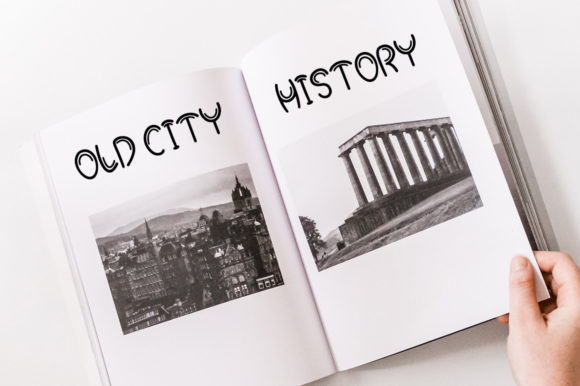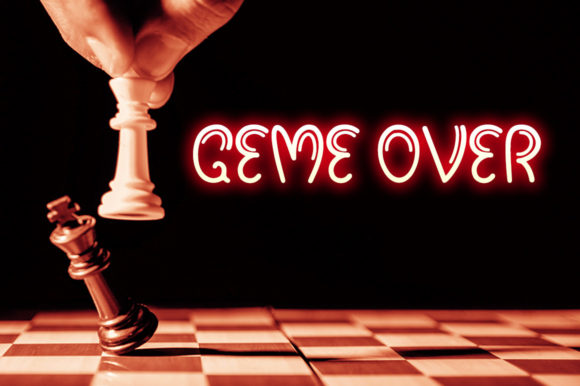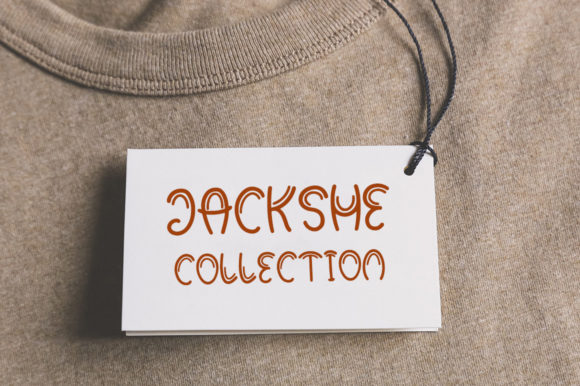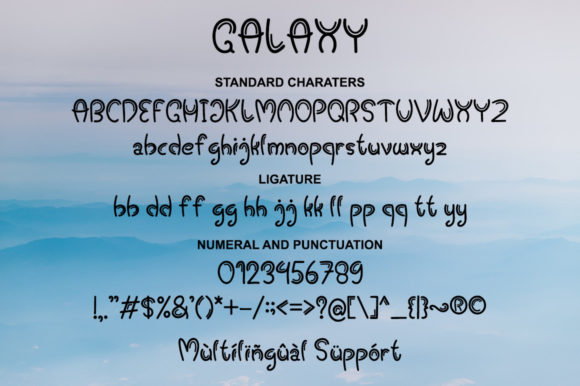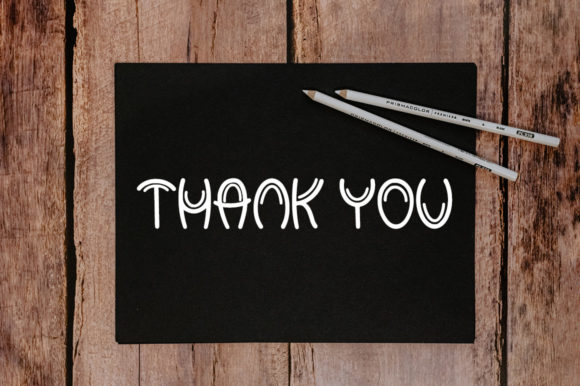
Introducing Galaxy Font: The Cool, Modern, and Chic Display Font
Are you tired of using the same old fonts for your designs? Look no further! Galaxy Font is here to revolutionize the way you create. This cool, modern, and chic looking display font is perfect for designers and crafters who want to add a touch of quirkiness to their work. In this article, we’ll dive into the world of Galaxy Font and explore its features, benefits, and uses.
What is Galaxy Font?
Galaxy Font is a display font that boasts a unique and eye-catching design. With its modern and chic aesthetic, it’s perfect for creating stunning visual content that stands out from the crowd. The font’s quirky touch adds a playful and creative element, making it ideal for designers who want to push the boundaries of typography.
Key Features of Galaxy Font
- Unique and Quirky Design: Galaxy Font’s distinctive style sets it apart from other fonts. Its quirky elements add a touch of personality to your designs.
- Modern and Chic Aesthetic: The font’s sleek and contemporary design makes it perfect for modern designs and branding.
- Versatile: Galaxy Font can be used in a wide range of contexts, from posters and flyers to social media graphics and website headers.
- Easily Readable: Despite its quirky design, Galaxy Font remains easily readable, even at smaller font sizes.
Benefits of Using Galaxy Font
So, why choose Galaxy Font for your designs? Here are just a few benefits:
- Stand Out from the Crowd: With Galaxy Font, you can create designs that are truly unique and attention-grabbing.
- Add a Touch of Personality: The font’s quirky design allows you to inject a bit of personality into your work, making it more engaging and relatable.
- Save Time: With Galaxy Font, you can create stunning designs quickly and easily, without sacrificing style or quality.
Use Cases for Galaxy Font
Galaxy Font is incredibly versatile, making it suitable for a wide range of design projects. Here are some use cases to get you started:
- Posters and Flyers: Create eye-catching posters and flyers that grab attention and leave a lasting impression.
- Social Media Graphics: Use Galaxy Font to create engaging social media graphics that stand out in crowded feeds.
- Website Headers: Add a touch of personality to your website headers and make a lasting impression on visitors.
- Branding and Logo Design: Use Galaxy Font to create unique and memorable branding and logo designs.
Tips for Using Galaxy Font
To get the most out of Galaxy Font, here are a few tips to keep in mind:
- Experiment with Different Sizes: Galaxy Font looks great at a range of sizes, so don’t be afraid to experiment and find the perfect fit for your design.
- Pair with Other Fonts: Try pairing Galaxy Font with other fonts to create a unique and visually appealing combination.
- Use it Sparingly: While Galaxy Font is incredibly versatile, it’s best to use it sparingly to avoid overwhelming your design.
Galaxy Font is a game-changing display font that’s perfect for designers and crafters who want to add a touch of quirkiness to their work. With its unique and eye-catching design, modern and chic aesthetic, and versatility, it’s the perfect choice for a wide range of design projects. Whether you’re creating posters, social media graphics, or website headers, Galaxy Font is sure to help you stand out from the crowd.